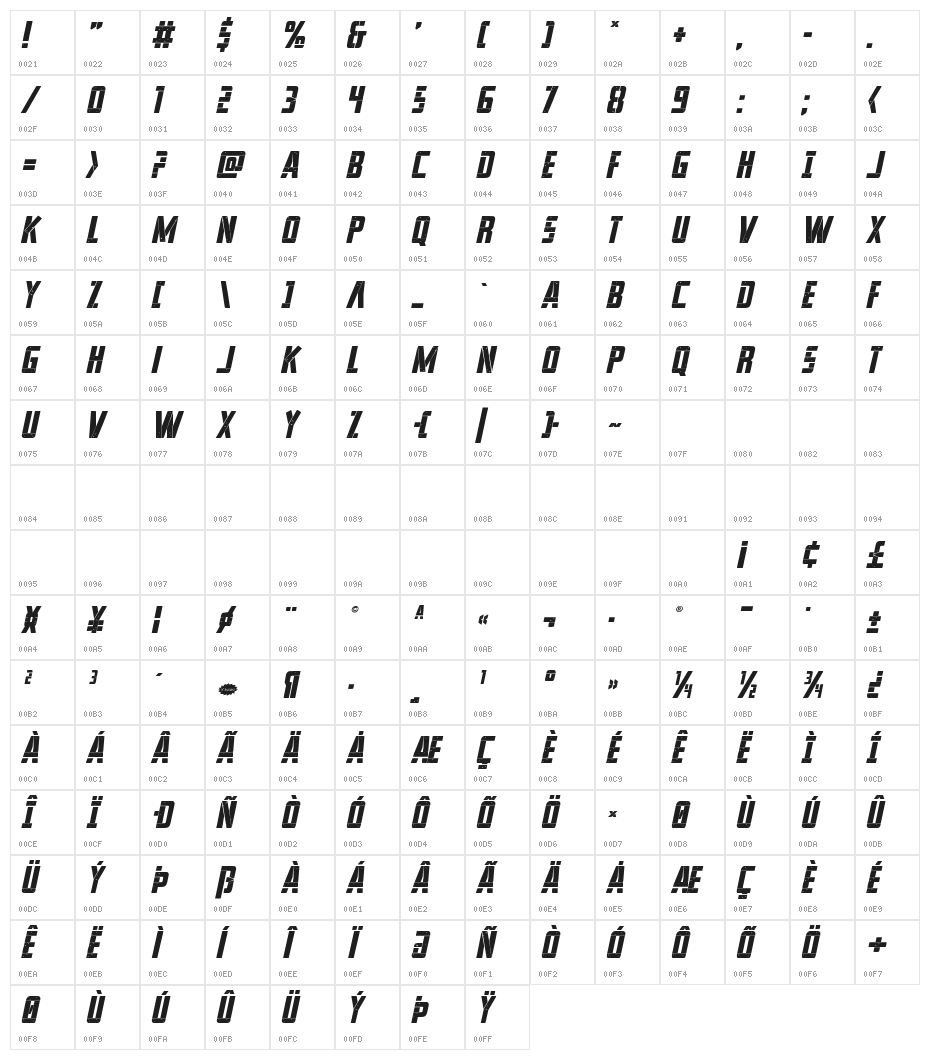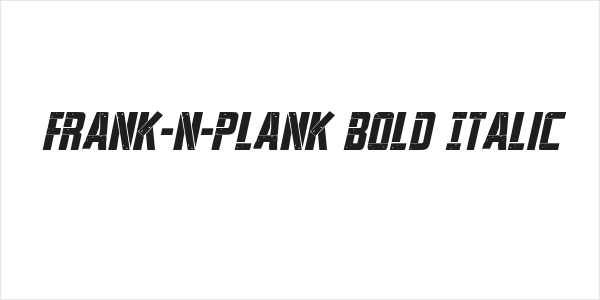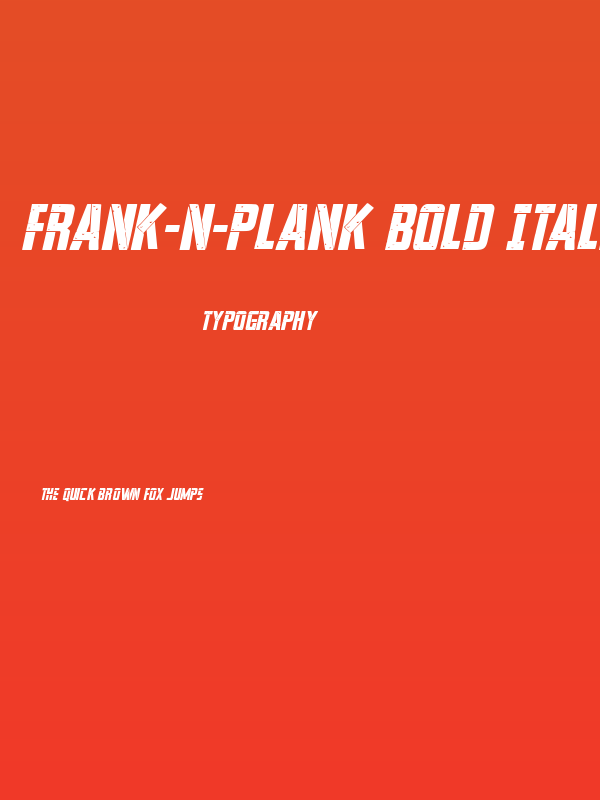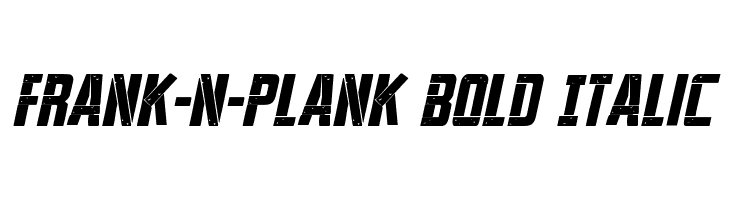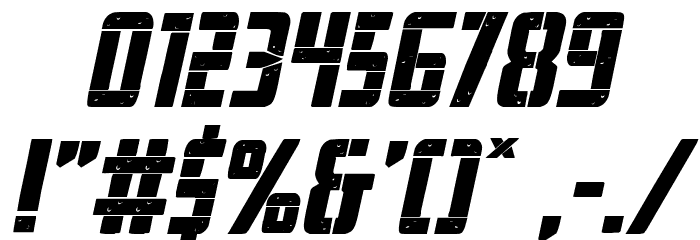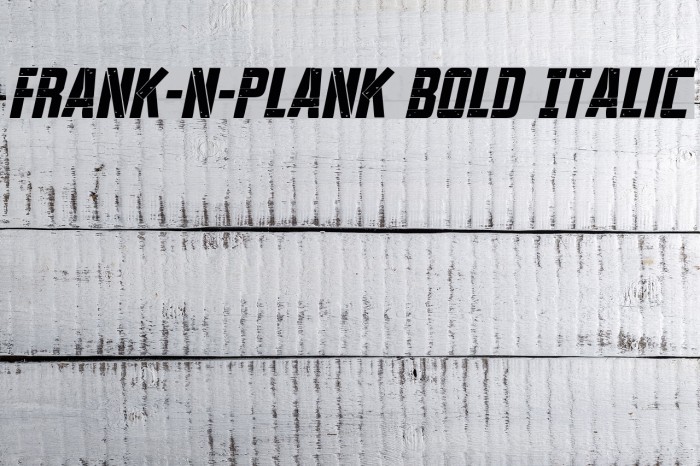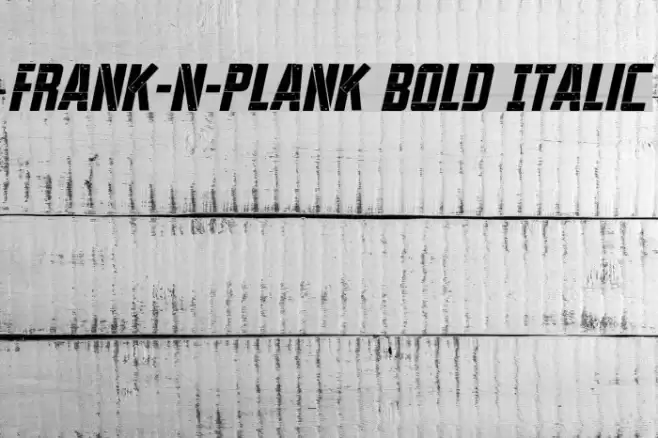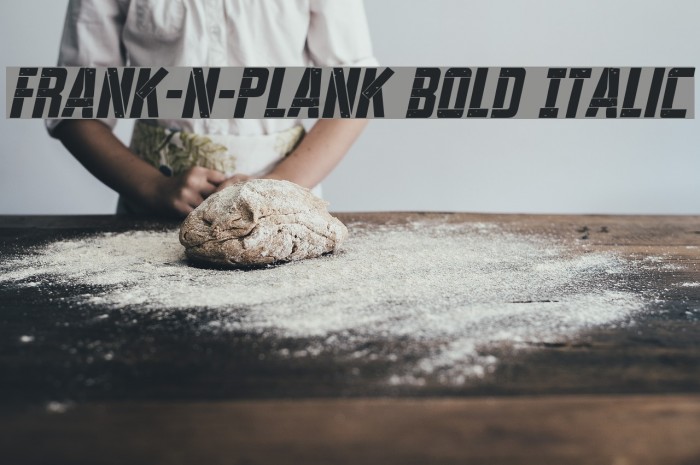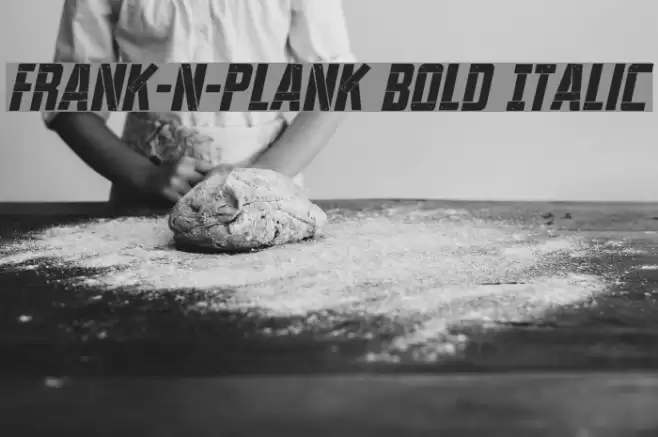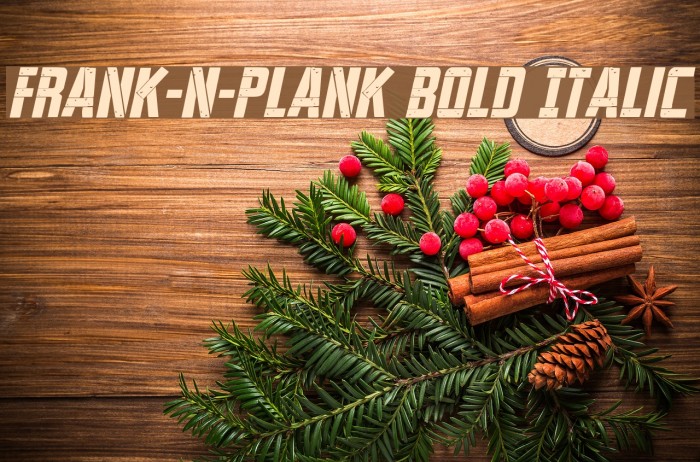
Frank-n-Plank Bold Italic Font
Frank-n-Plank Bold Italic Description
This font features a bold and italicized style with a distinct industrial and mechanical aesthetic. The characters are constructed with a blocky, angular design, incorporating rivet-like details that give it a rugged, metallic appearance. The uppercase letters are prominent and commanding, while the lowercase letters maintain the same robust style. Numbers and special characters are designed to match the overall theme, ensuring consistency across all glyphs. The font's unique design elements make it stand out, suitable for projects that require a strong, impactful visual presence.
| Overall Style | Industrial, Mechanical, Decorative |
| Proposed Projects | Ideal for branding, posters, video game graphics, and any project needing a strong, industrial look. |